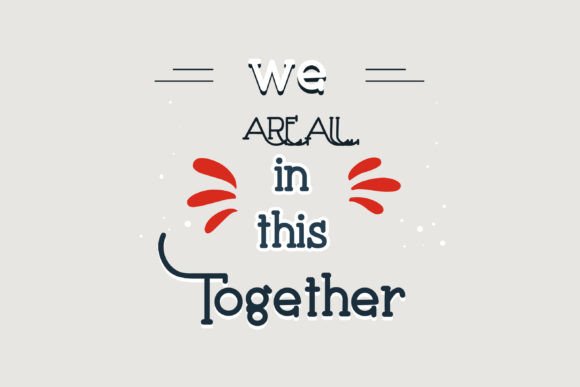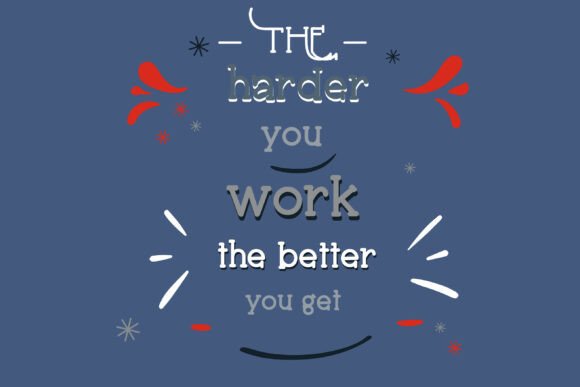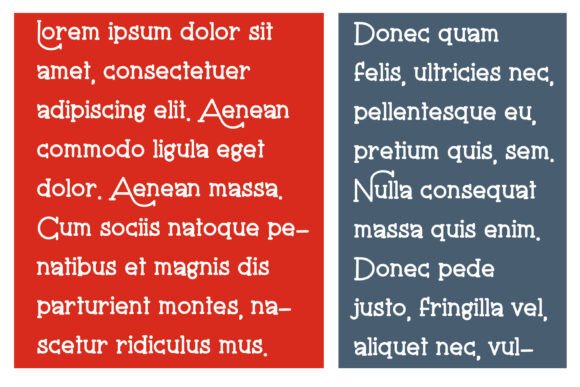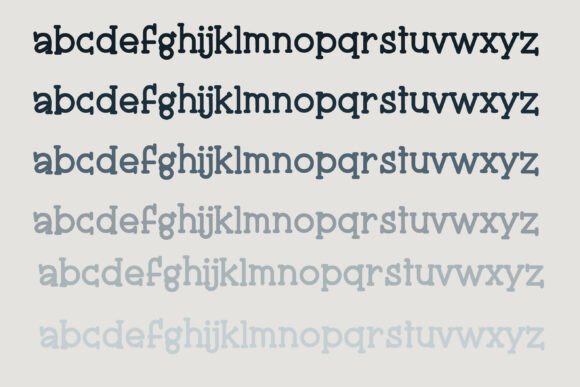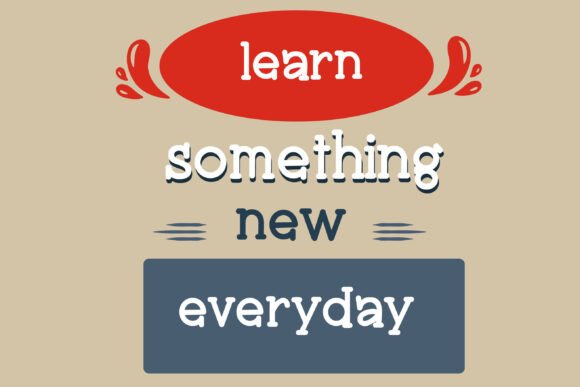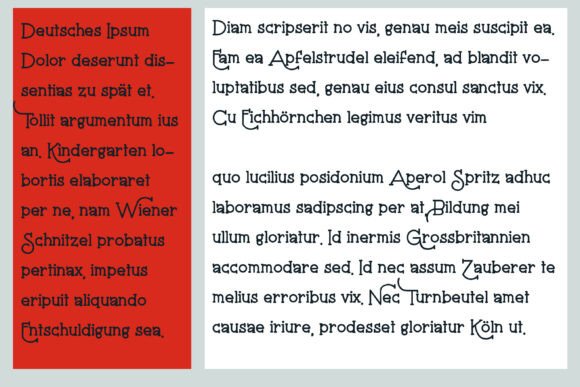
Introduction to Koala Cake Font
Do you remember the thrill of designing a birthday party invitation or a bakery logo as a kid? The joy of bringing your imagination to life and making others smile is a feeling that never gets old. As a designer, finding the perfect font can make all the difference in elevating your creative project from ordinary to extraordinary. And that’s exactly what the Koala Cake Font does – it adds a dash of whimsy and charm to any design.
With its sweet and playful serif design, the Koala Cake Font is a high-quality resource that’s perfect for kids’ designs, party invitations, bakery branding, and more. Its soft rounded structure and charming flourishes make it a standout choice for designers looking to add a classic touch with a modern twist.
Key Features of Koala Cake Font
- High-quality design resource perfect for creative projects, including invitations, party decorations, and more.
- Unique, hand-drawn style featuring a koala holding a cake, ideal for adding a playful touch to your designs.
Honest Review: Koala Cake Font
As a designer, I’m always on the lookout for high-quality design resources to elevate my creative projects. Recently, I came across the Koala Cake Font, and I must say it’s a delightful addition to any design library.
What works well with this font is its playful and whimsical feel, making it perfect for desserts and food-related designs. The Koala Cake Font is available as a free download, which is a definite bonus. I appreciate the transparent background, allowing for seamless integration with any design element.
- ✨ High-quality design with a clear and readable font
- ✨ Perfect for desserts, food, and children’s designs
One limitation I noticed is that the font is a bit limited in its character set, which may not be suitable for extensive text-based designs. Additionally, the font’s design is quite specific, so it may not be versatile enough for more complex projects.
Overall, I’m impressed with the Koala Cake Font, and I’d recommend it for designers looking for a fun and unique design element to add to their creative projects. While it may not be the most versatile font, its playful charm and high-quality design make it a valuable addition to any design library.
Use the Koala Cake Font on a transparent background to give your design a clean and modern look. Experiment with different font sizes and colors to add visual interest to your project.
The Koala Cake Font is commonly used in food-related designs, such as cake toppers, food labels, and restaurant menus. It’s also great for creative projects like invitations, posters, and social media graphics.